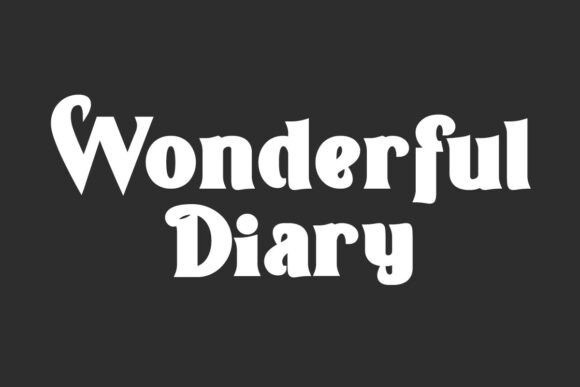
Wonderful Diary Font
Wonderful Diary Font is a stunning serif font meticulously designed to infuse your projects with immediate elegance and remarkable versatility.
This font is the ideal choice whether you are crafting a heartfelt diary cover, developing chic branding materials, or creating eye-catching headlines that demand attention.
Bold Character and Broad Application
The Serif display font, in particular, features bold letter characters inspired by vintage posters, ensuring maximum readability without sacrificing its adorable charm.
This makes it an excellent choice for a wide array of professional uses, including brand logos, striking headlines, magazine covers, posters, signage, stationery, and website typography.
It has been carefully crafted to create the perfect impression for advertisements, beauty products, boutiques, cafeterias, crafts, fashion, photography, skincare, and spa-related branding.